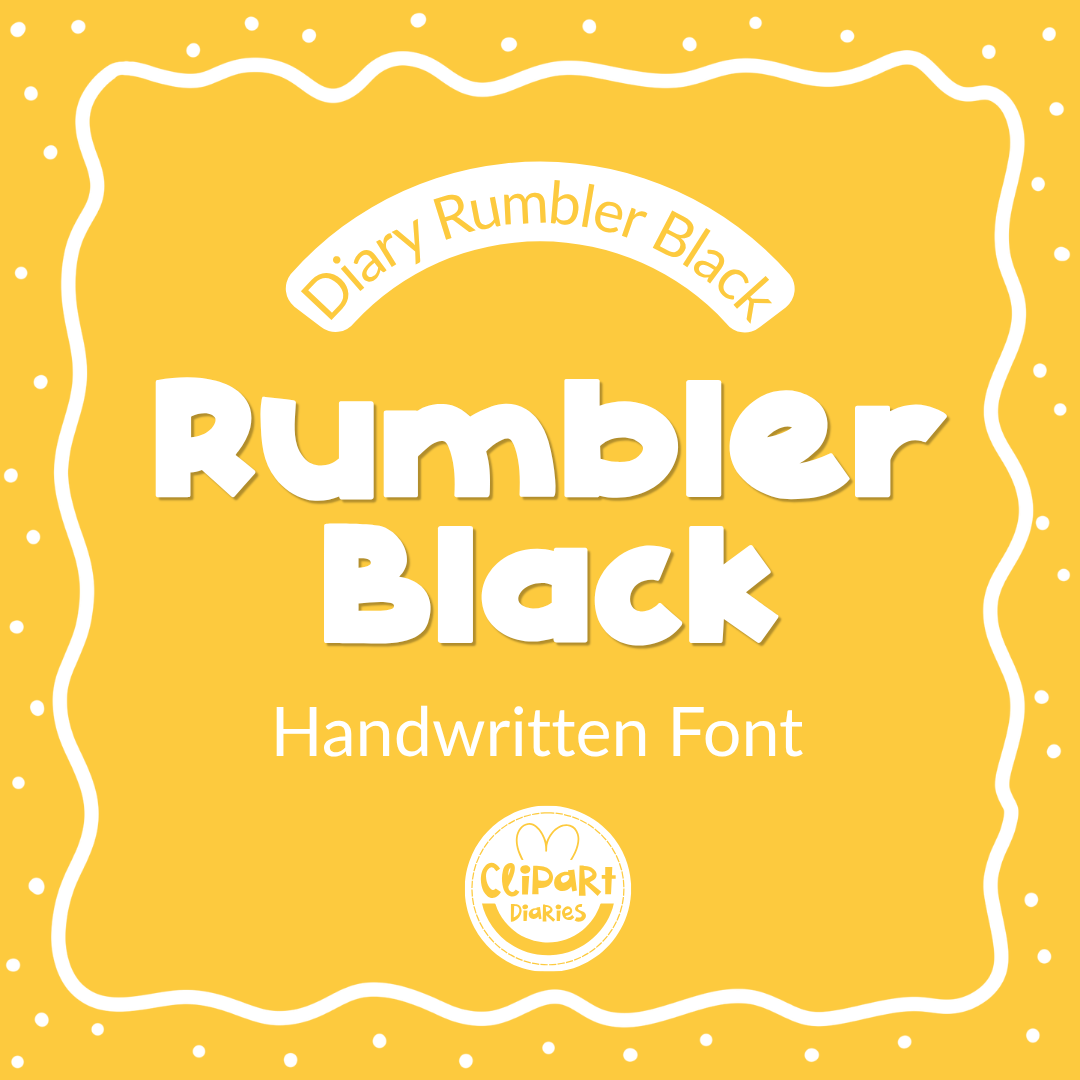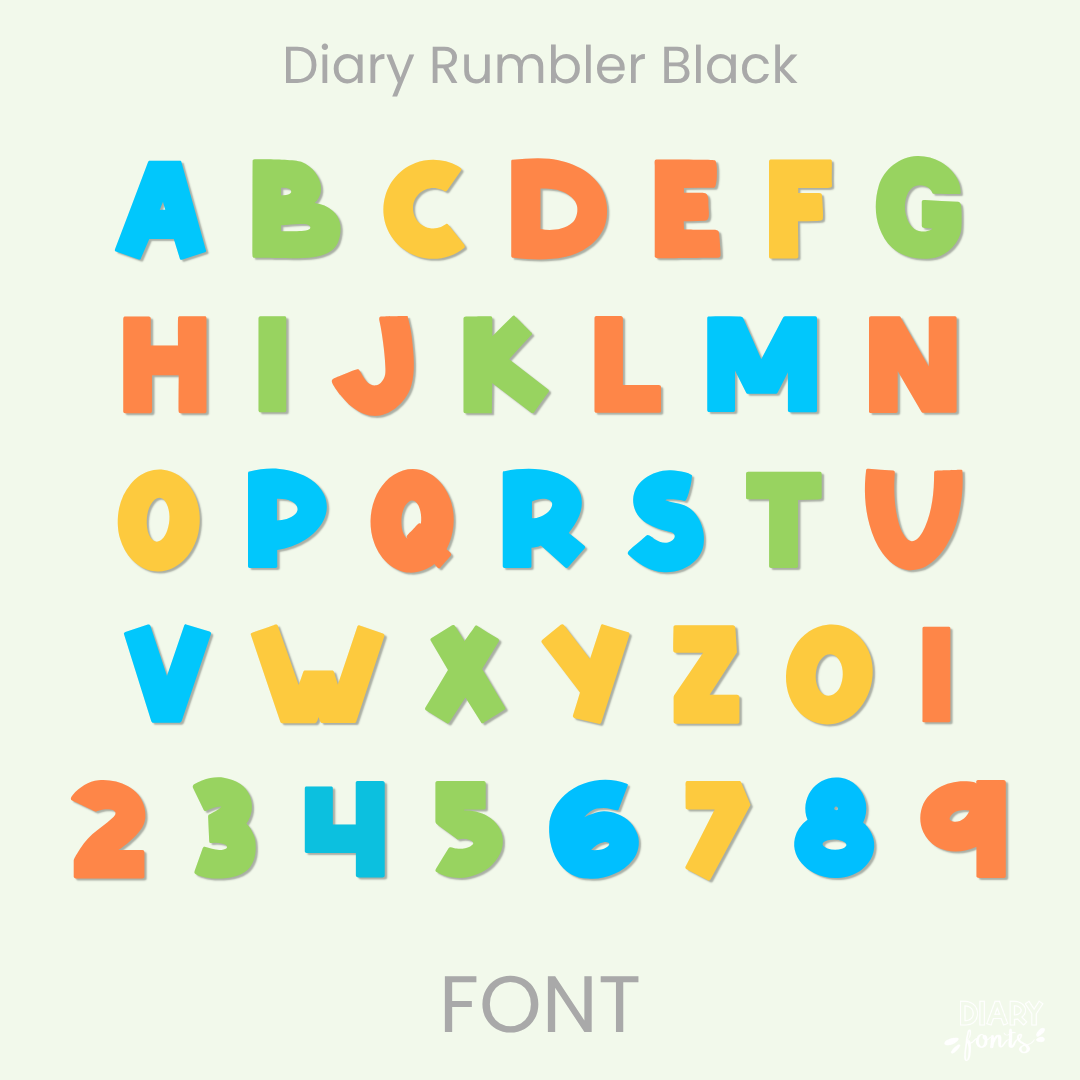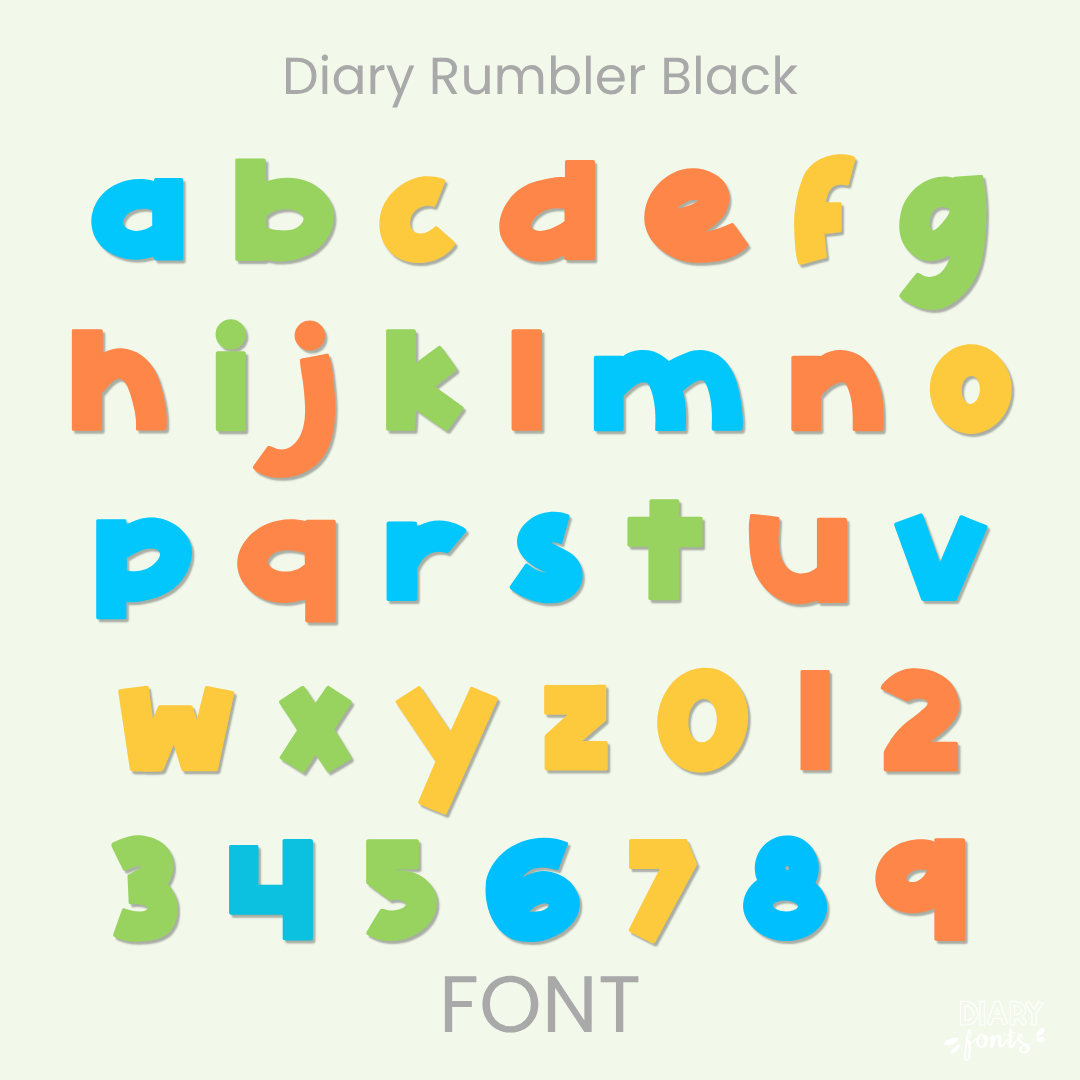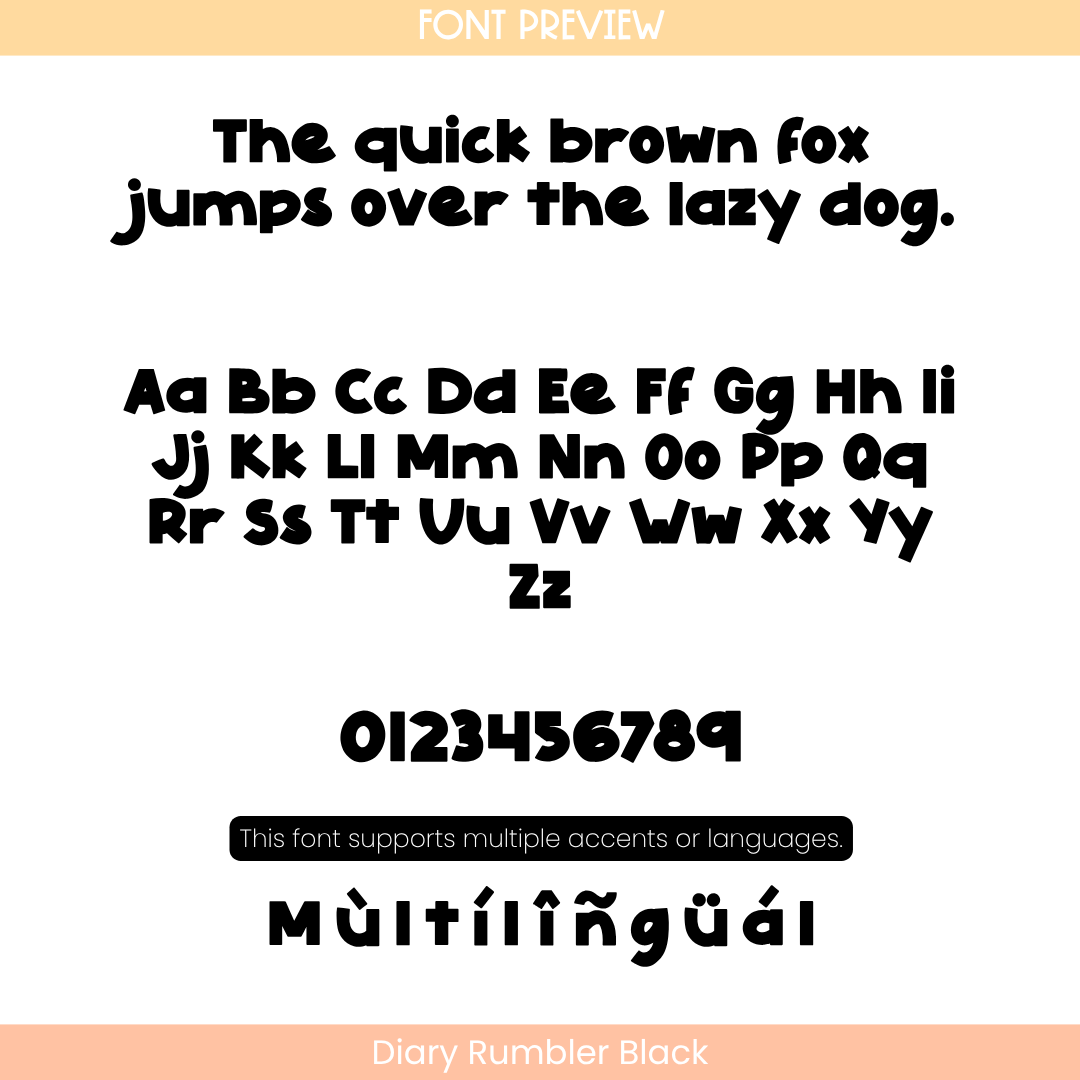
If you want to grab your students’ attention from the very back of the room, Diary Rumbler Black is about to become your new secret weapon. It features super thick, heavy-weighted blocky lines with a delightful playful bounce that brings instant energy to any page. Instead of a standard uniform look, this font features cozy, hand-drawn cuts and unique curves that give it loads of personality while staying incredibly clean, bold, and easy for sweet little eyes to read.
It is the absolute perfect choice for creating high-impact bulletin boards, bold presentation slide titles, subject covers, and classroom labeling systems where you want your text to make a major statement. Inside the download, you’ll get a full set of chunky uppercase and lowercase letters, solid matching numbers, and multi-accent marks for complete multilingual support. It drops right into Canva, MS Office, or Adobe on your desktop, and pairs beautifully with Procreate and GoodNotes on your iPad. Whether you’re crafting weekly printables for your own sweet classroom or designing a bold new product line for your online teacher shop, this heavy display font brings a fun, confident vibe to your creative toolkit.